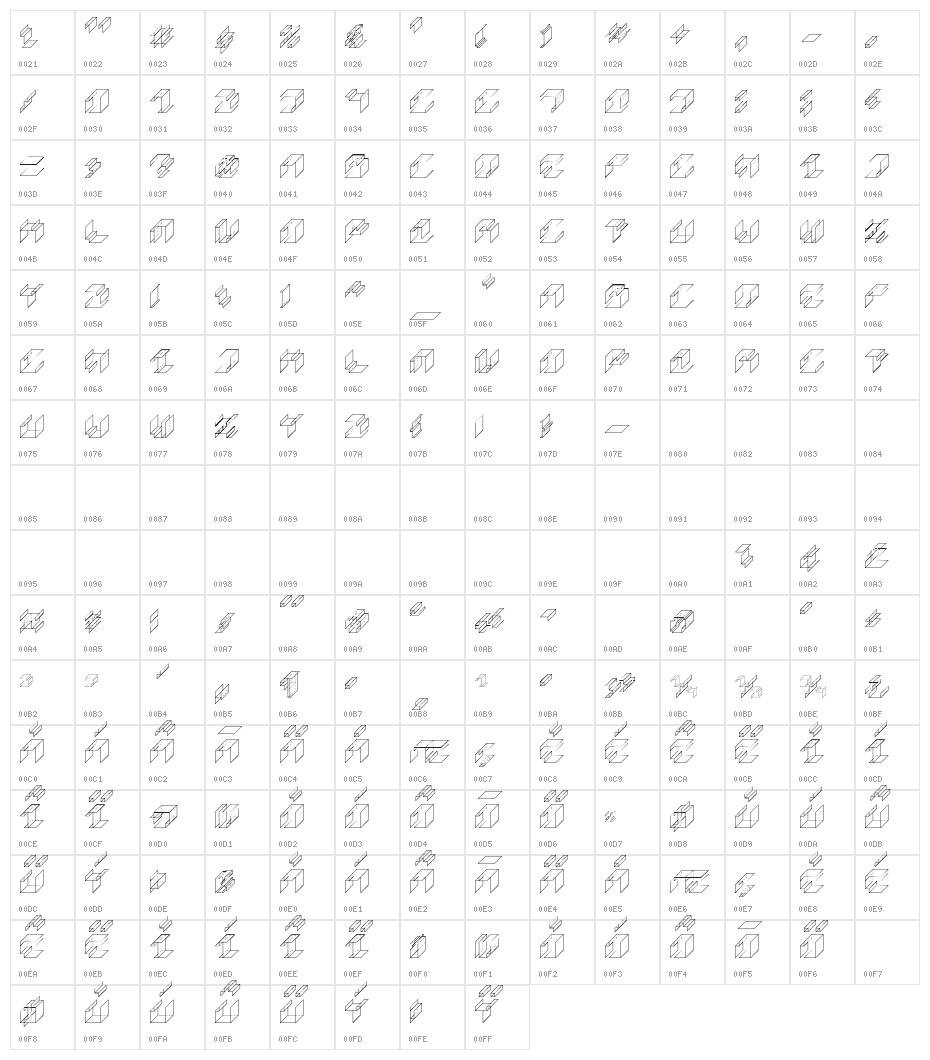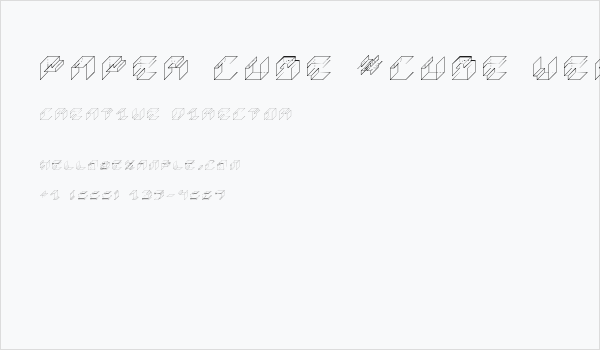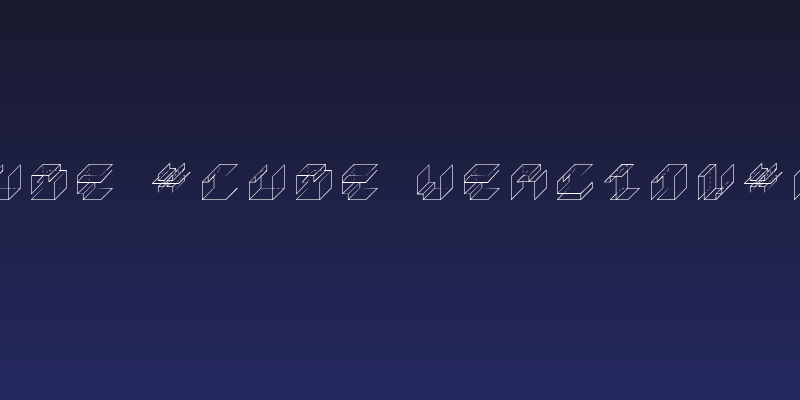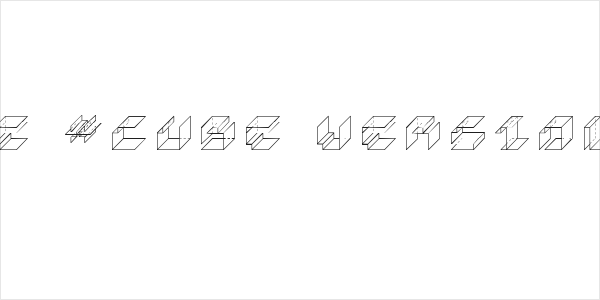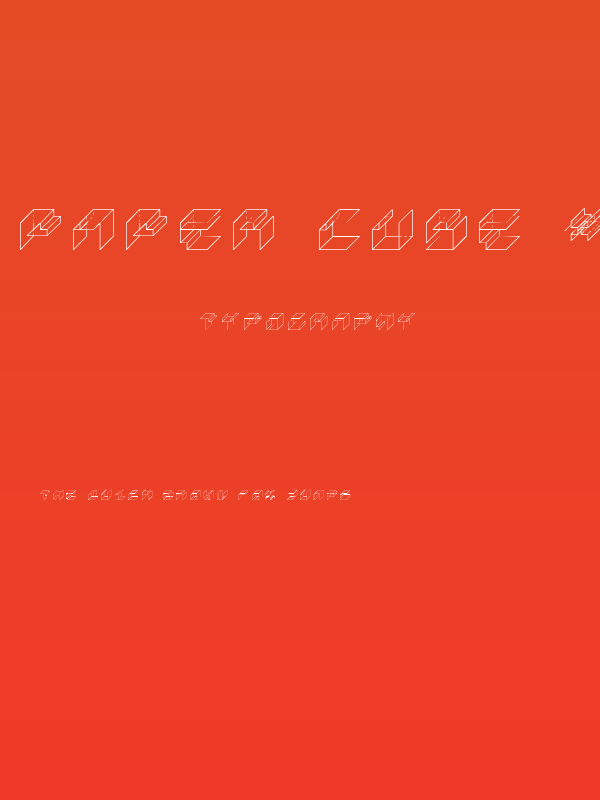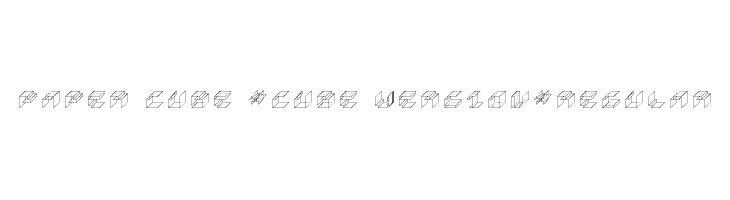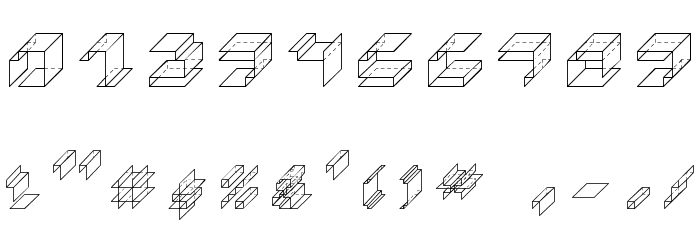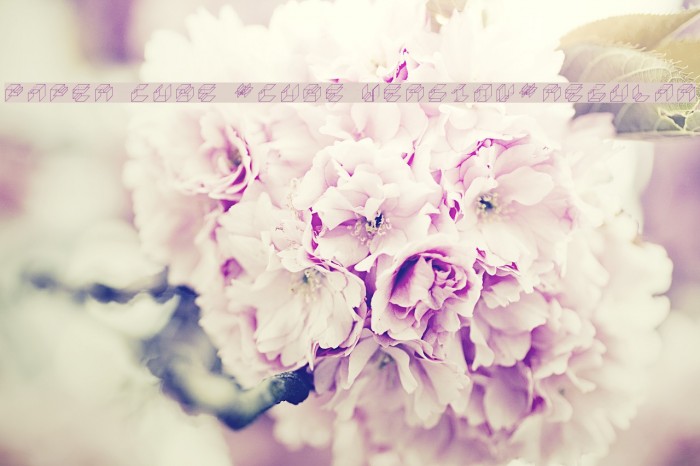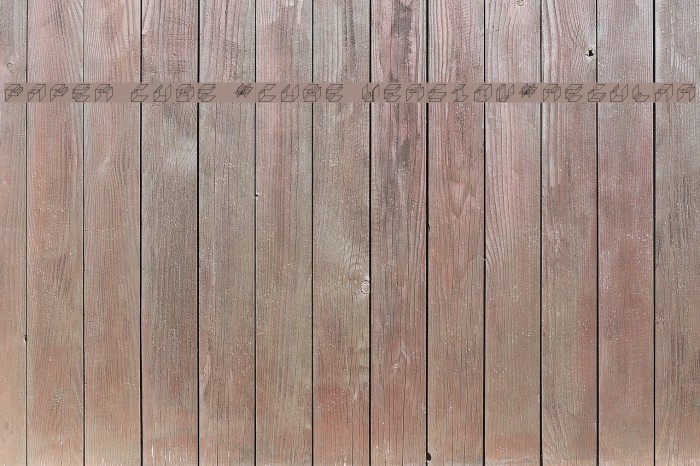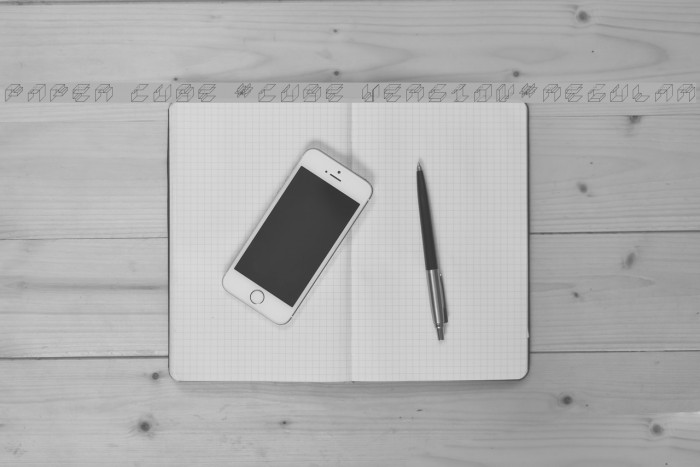
This font features a unique, three-dimensional cube-like design that gives each character a distinct geometric appearance. The letters are constructed with lines and angles that create an illusion of depth, resembling folded paper or origami structures. This design approach makes the font highly decorative and visually engaging, suitable for creative and artistic projects. The characters maintain a consistent style, with each letter appearing as a part of a cohesive set, while still allowing for individual recognition. The font's intricate design may not be ideal for small text but excels in larger formats where its details can be fully appreciated.
| Proposed Projects | Ideal for posters, album covers, branding, and any project requiring a bold, artistic statement. |